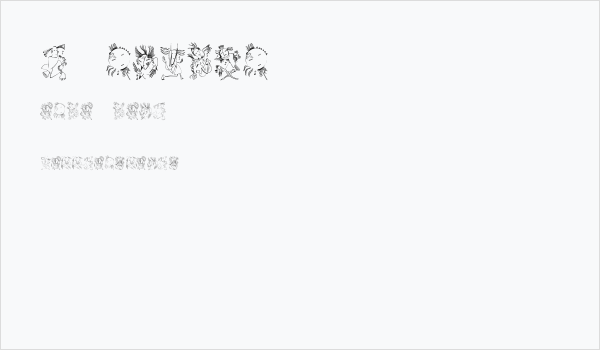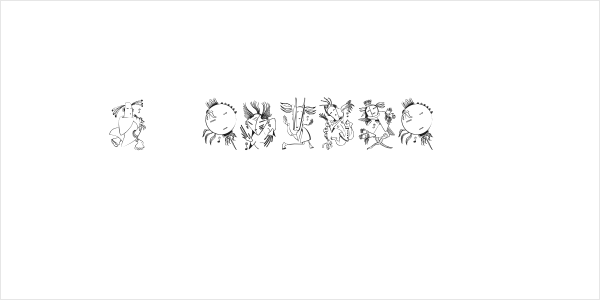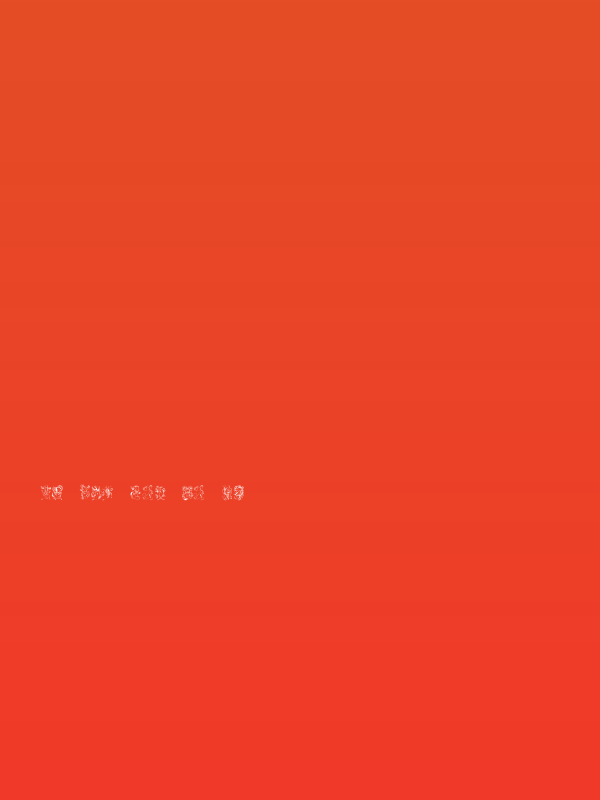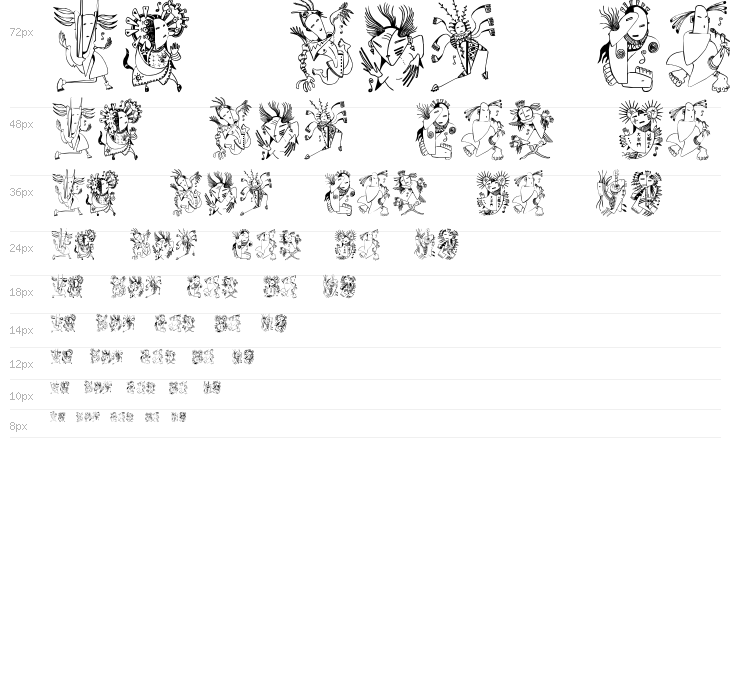
Z-Most Kachina 2 Font
Z-Most Kachina 2 Description
This font features highly decorative and artistic characters inspired by Kachina dolls, which are traditional to Native American cultures. Each letter is represented by a unique, intricate illustration that combines elements of human and animal forms, adorned with feathers, masks, and ceremonial attire. The style is whimsical and playful, with a strong cultural influence that makes it stand out as a piece of art rather than a conventional typeface. The characters are detailed and complex, making them more suitable for decorative purposes rather than readability in body text.
| Use Case | Logos, Posters, Artistic Displays |
| Proposed Projects | Ideal for cultural projects, artistic displays, posters, or any design requiring a unique and decorative touch. |